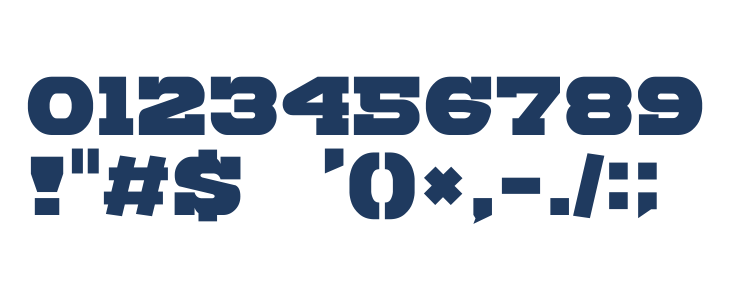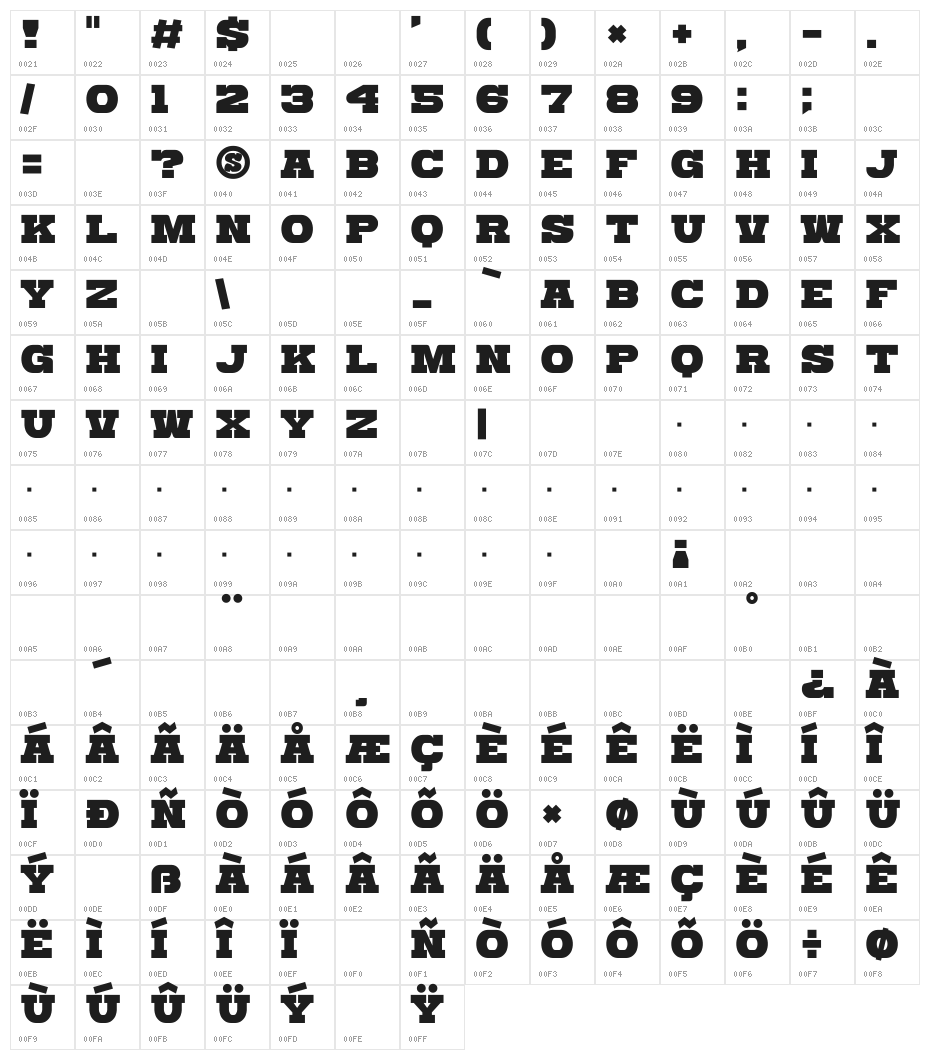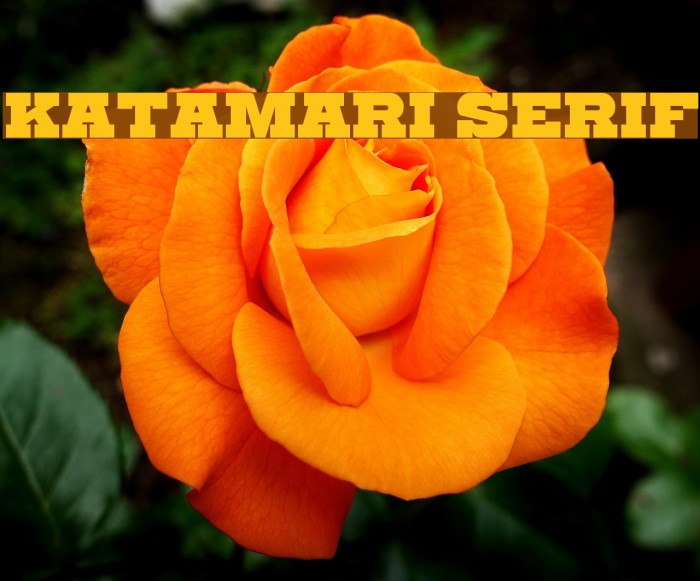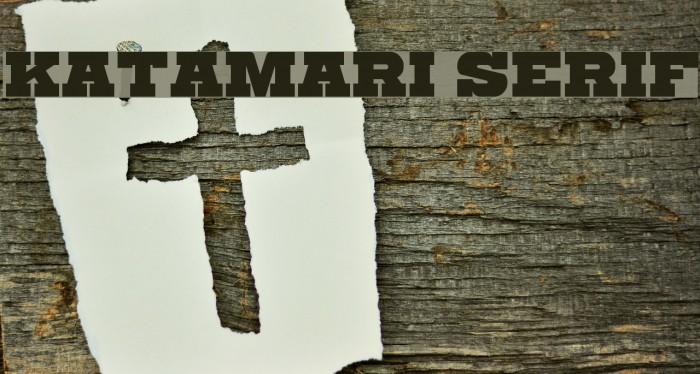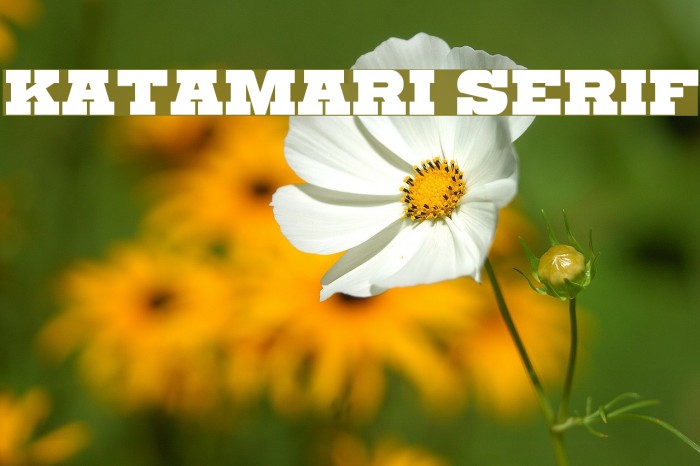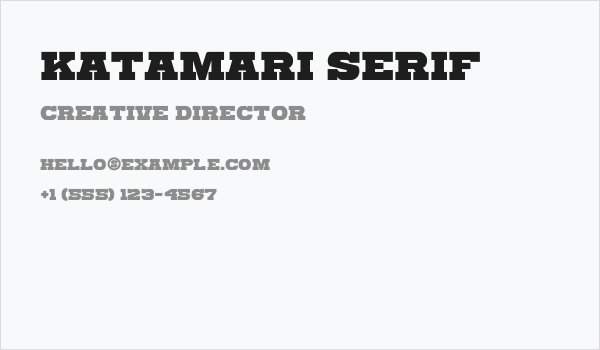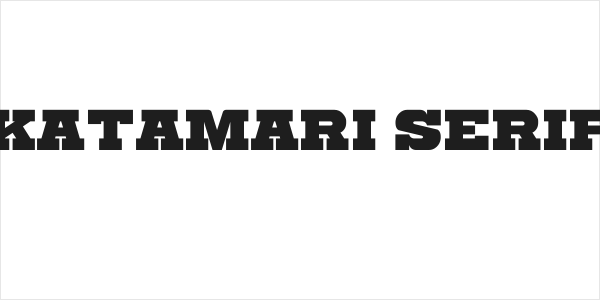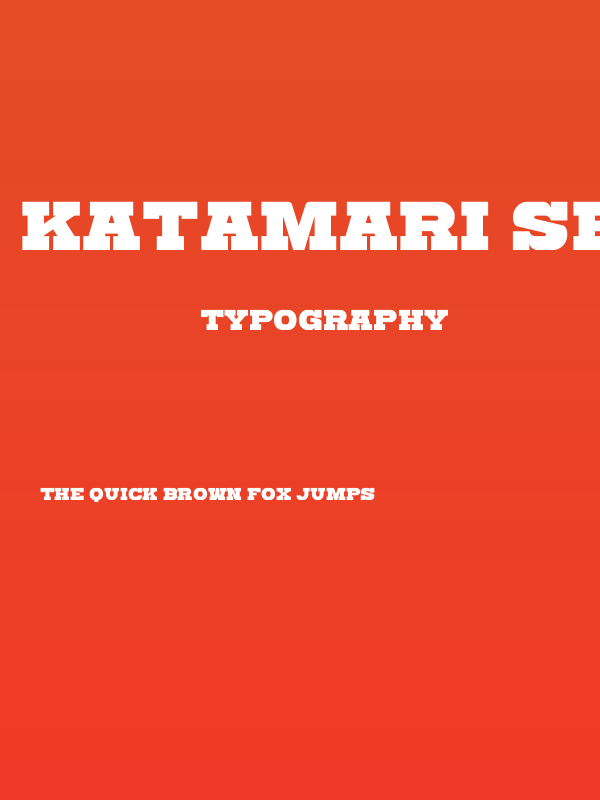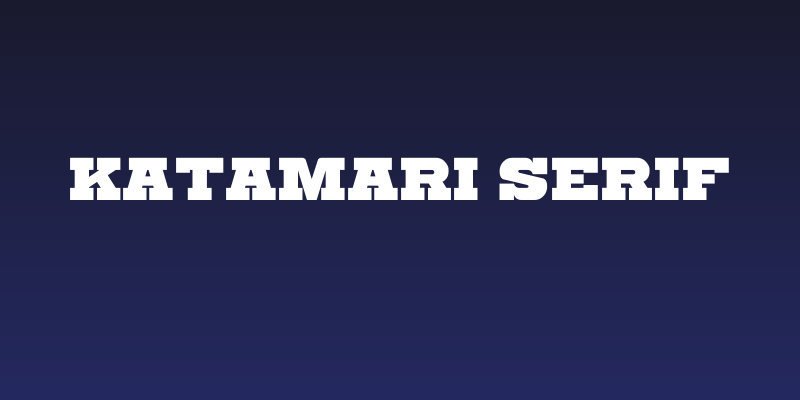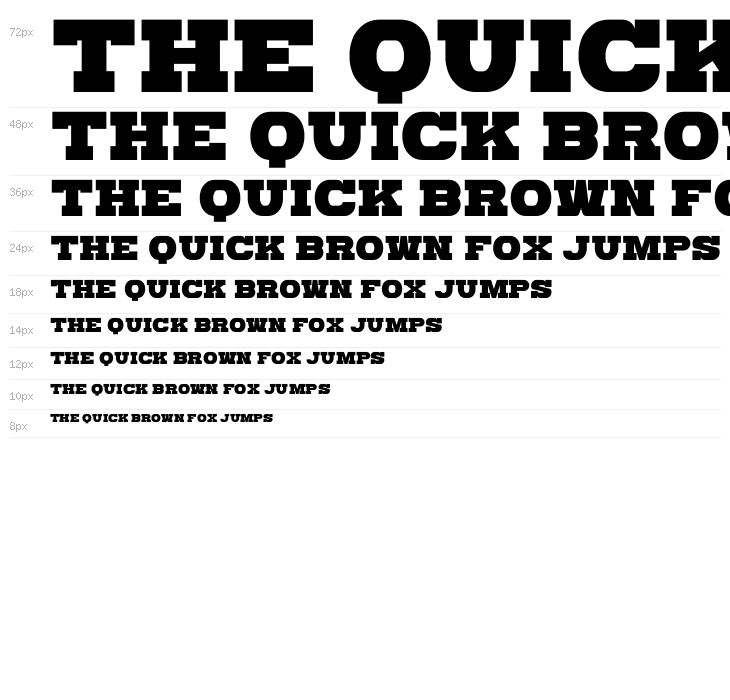
Katamari Serif Font
Katamari Serif Description
This font is a bold and striking serif typeface characterized by its thick, block-like serifs and strong presence. Each letter is crafted with a robust structure, making it highly legible and impactful. The uppercase letters are particularly prominent, with a uniform height and width that convey a sense of stability and authority. The numbers and special characters maintain the same boldness, ensuring consistency across all elements. This font's design is reminiscent of classic Western-style typefaces, yet it carries a modern twist with its clean lines and minimalistic approach.